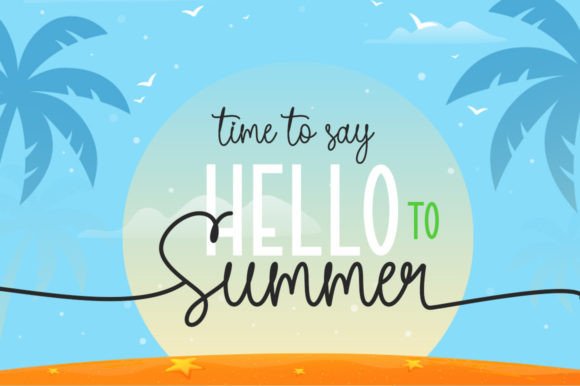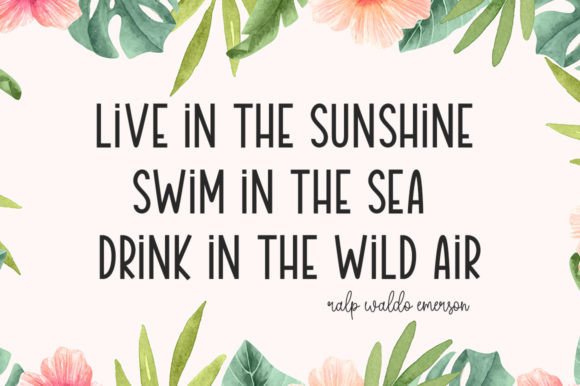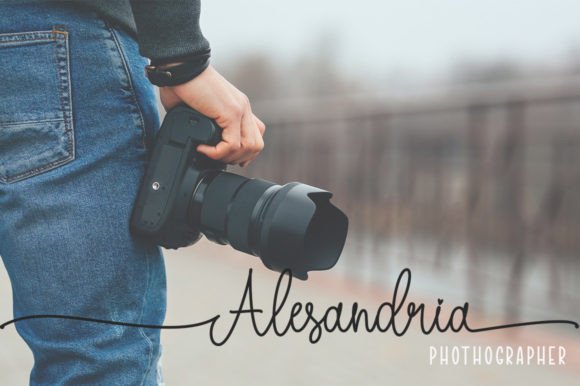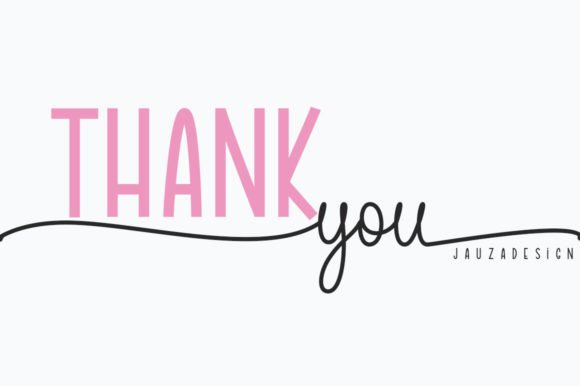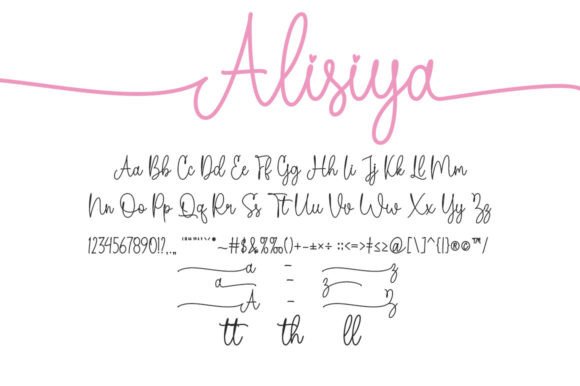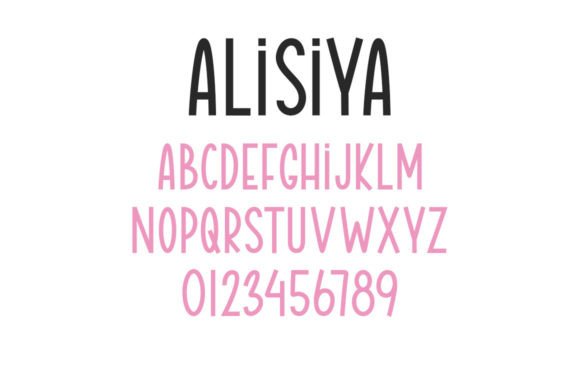
Alisiya Font
About Alisiya Font
“Alisiya is a lovely duo font that includes both a sans-serif and script typeface. With characters that dance along the baseline, this font duo adds a touch of luxury to any design project you wish to create! Alisiya is PUA encoded, allowing easy access to all the glyphs and swashes for enhanced creative flexibility.
The charm of Alisiya lies in its combination of a sans-serif and script font, where each character is carefully crafted to create a harmonious and luxurious aesthetic. This font duo becomes a versatile choice for designers seeking an elegant and sophisticated look for a variety of creative applications.
Whether you’re working on branding, invitations, or any other design project, Alisiya stands out as a font that enhances the overall appeal. The script font adds a touch of elegance, while the sans-serif provides a clean and modern balance.
Imagine Alisiya bringing a touch of luxury to your projects, with characters dancing along the baseline and creating a visually appealing text. Its duo font nature becomes the defining element that sets your designs apart, creating a visual experience that resonates with sophistication.
As you explore the nuances of Alisiya, you’ll discover its potential to transform ordinary projects into visually delightful expressions. Let it be the duo font that brings a luxurious spark to your creative vision, making your designs stand out with an elegant and harmonious aesthetic. With Alisiya, every stroke becomes a brushstroke of luxury, and its PUA encoding ensures easy access to all glyphs and swashes, providing creative freedom for your designs.”